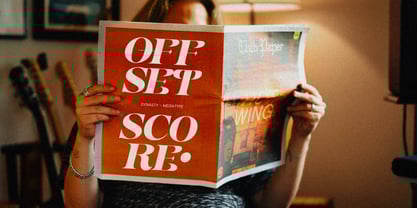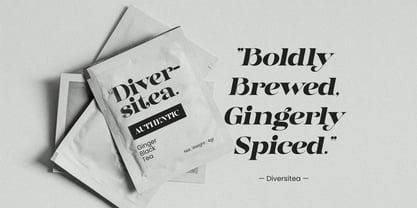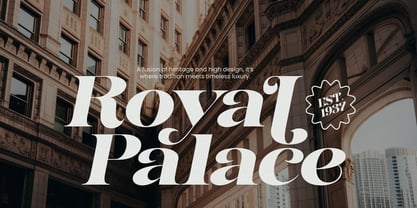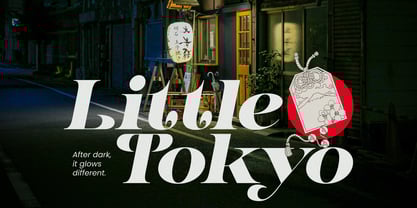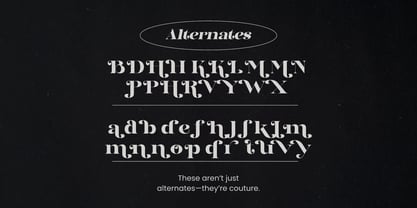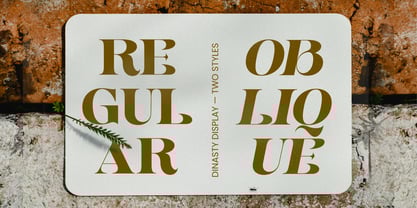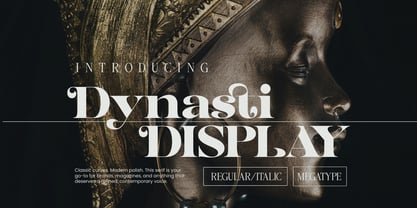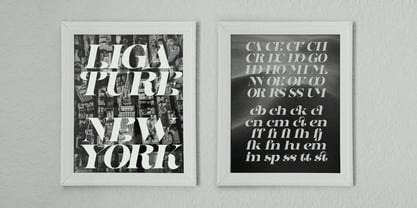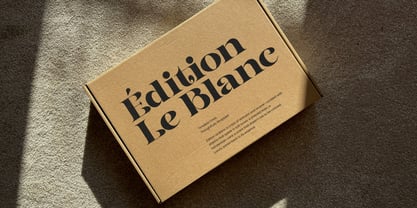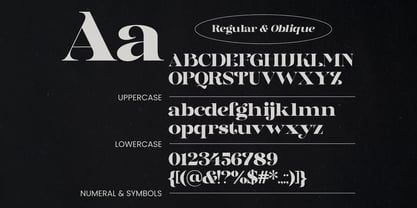
Dynasti Display
by Mega Type
Dynasti Display Font Family was designed by M Akmal and published by Mega Type. Dynasti Display contains 2 styles family package options.
INTRODUCING Dynasti Display - Decorative Serif Typeface.
Dynasti Display is a bold decorative serif typeface characterized by its striking contrast between thick and thin strokes and its ornate, almost calligraphic elements. The uppercase letters are elegant with exaggerated terminals and unique serif designs that give them a dramatic flair. The lowercase letters maintain high contrast, with some showing elaborate swashes and unusual shapes, adding an artistic touch. The italic styles introduce a pronounced slant, enhancing the typeface's dynamic appearance. This font is best suited for creative designs, luxury branding, and sophisticated editorial layouts where a statement is needed.
Features:
- All Uppercase and Lowercase
- Numbers & Symbols
- Alternates and Ligatures
Designers: M Akmal
Publisher: Mega Type
Foundry: Mega Type
Design Owner: Mega Type